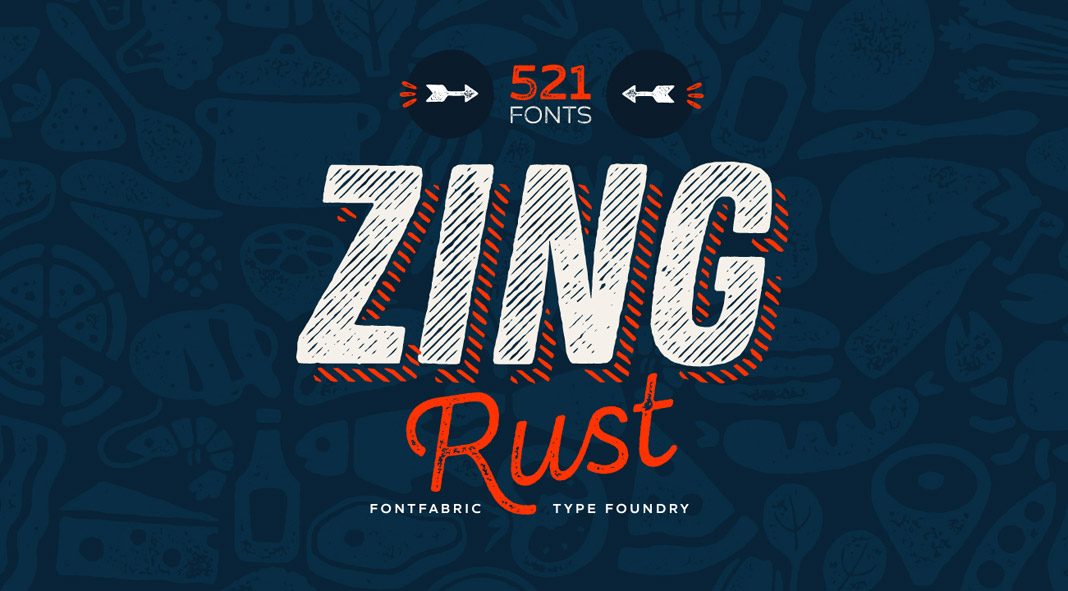
Zing Rust: textured vintage-inspired fonts full of freshness and bold flavors.
Including 521 individual fonts, Zing Rust is a huge pack consisting of 4 subfamilies: Zing Rust, Zing Script Rust, Zing Sans Rust, and Zing Goodies Rust. The entire collection can be customized with different styles of grunge textures, halftone effects, diagonal line patterns, and shadow layers. Zing Script Rust is equipped with lots of OpenType features as well as contextual alternates. Zing Goodies is an amazing set of food-related icons, banners, and catchwords. All fonts and goodies can be combined in countless ways. The entire collection of fonts and goodies is available on Fontspring and MyFonts, just follow the links below.